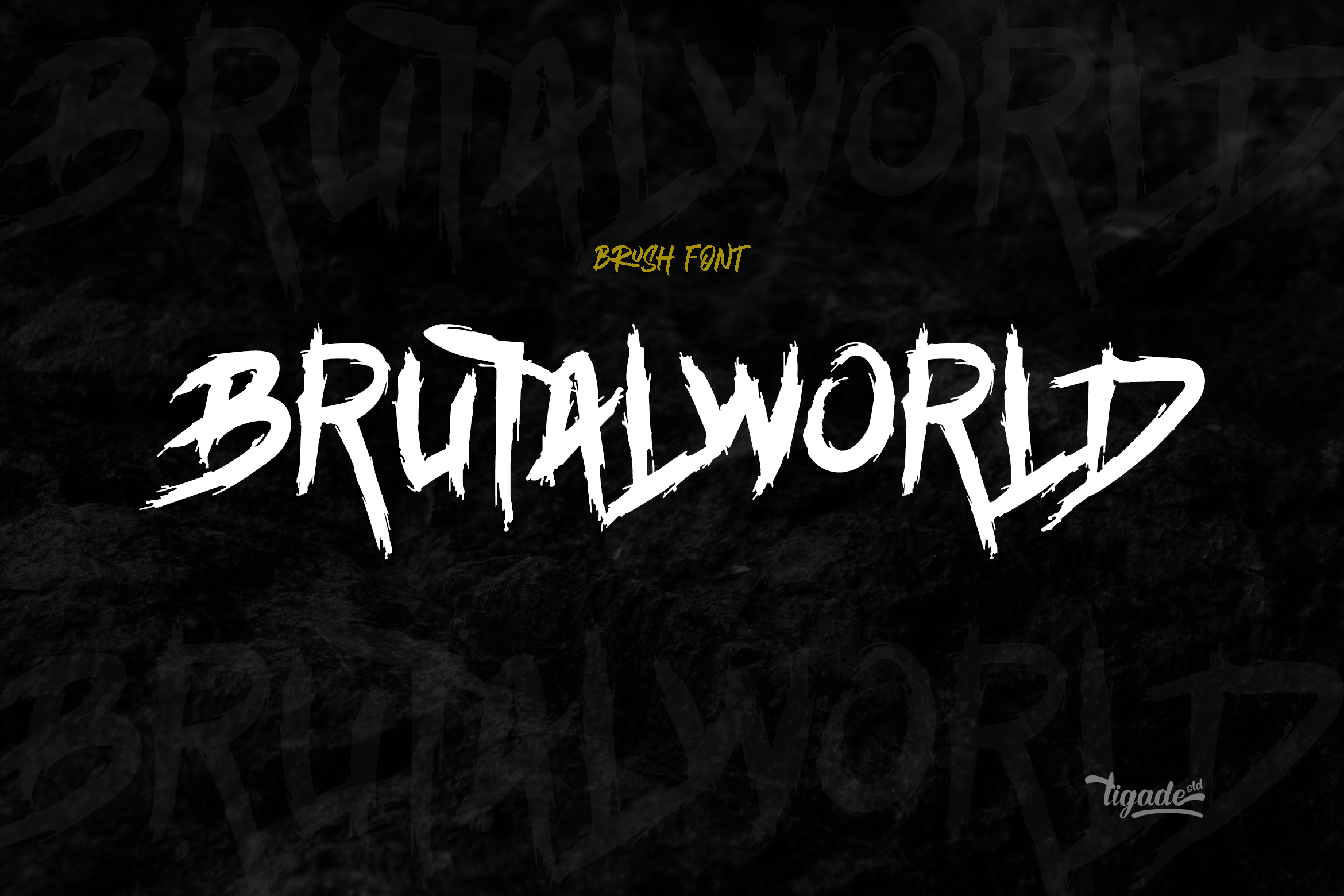
Brutalworld Font
Free Underground Fonts Download brutalworld font for pc mac for free, take a test drive and see the entire character set. Brutalworld is a strong brush font that has unique characteristics. it is a very minimum display font that come with all caps, exclamation and question mark. this font is suitable for deathmetal theme, deathmetal logo design, clothing, logos, covers, posters or other designs with the theme deathmetal. This font exudes a raw, edgy aesthetic with its jagged, brush like strokes that create a sense of movement and intensity. each character appears as if it has been slashed onto the page, giving it a rebellious and aggressive feel. Get the brutalworld font free! a grunge style font perfect for edgy logos, brutalist posters, and more. download now and unleash your inner rebel!.
Download Brutalworld Font Dafonttop This font exudes a raw, edgy aesthetic with its jagged, brush like strokes that create a sense of movement and intensity. each character appears as if it has been slashed onto the page, giving it a rebellious and aggressive feel. Get the brutalworld font free! a grunge style font perfect for edgy logos, brutalist posters, and more. download now and unleash your inner rebel!. Brutalworld font free download. a great choice for highlighting your design elements. Download brutalworld regular for free. view the full character map, custom text previews, and technical specs for this truetype font. Download free brutalworld font, view its character map and generate text based images or logos with brutalworld font online. Download brutalworld for free, view sample text, rating and more on fontsgeek.